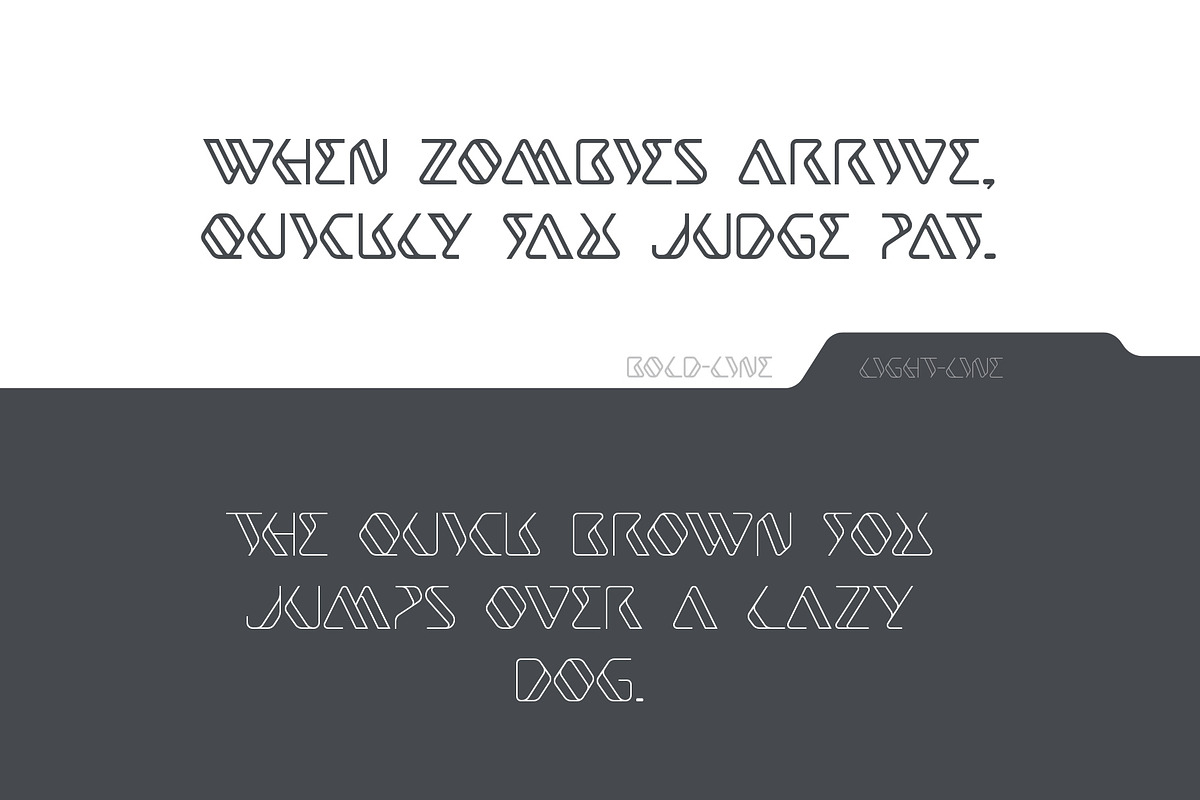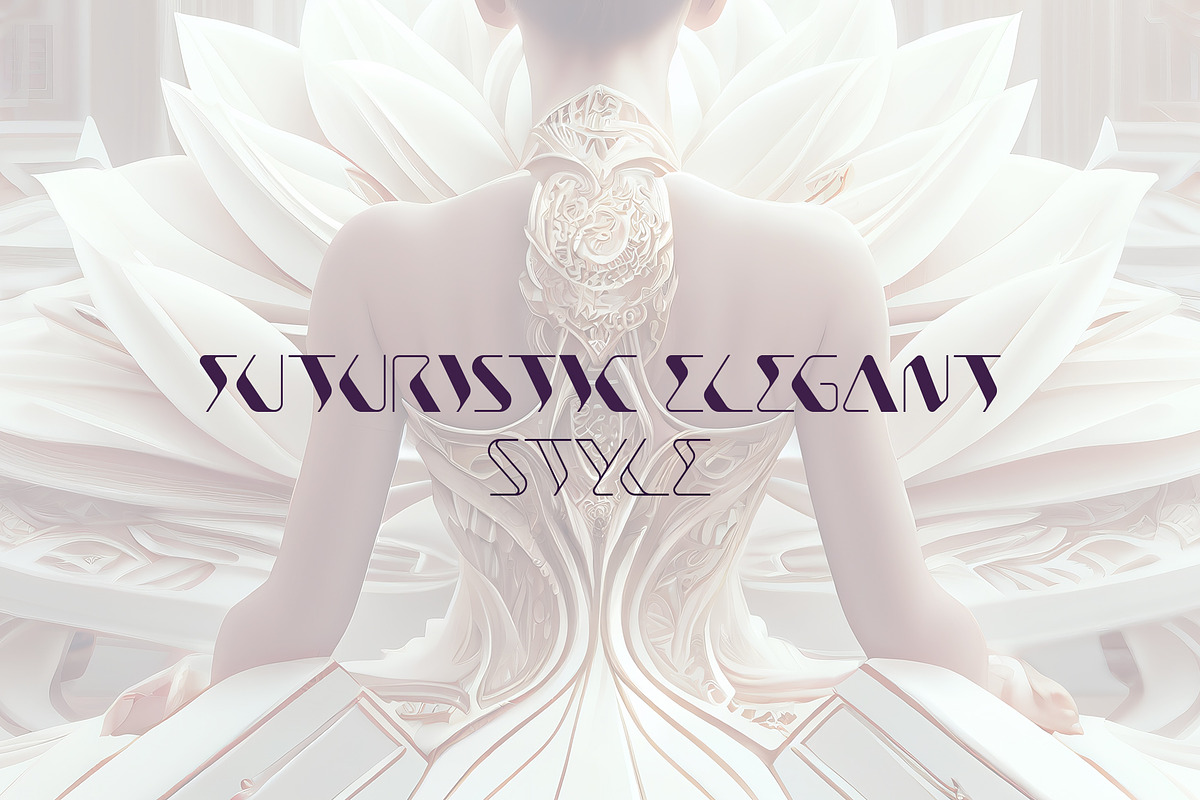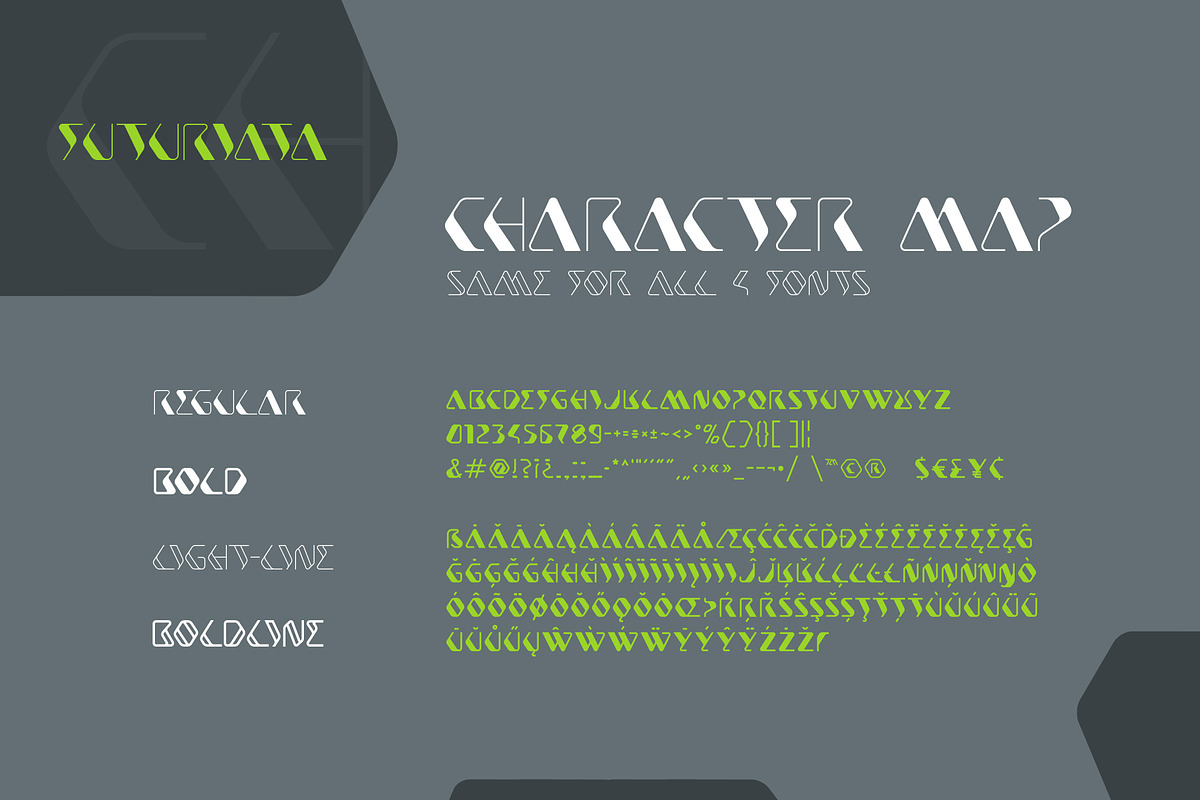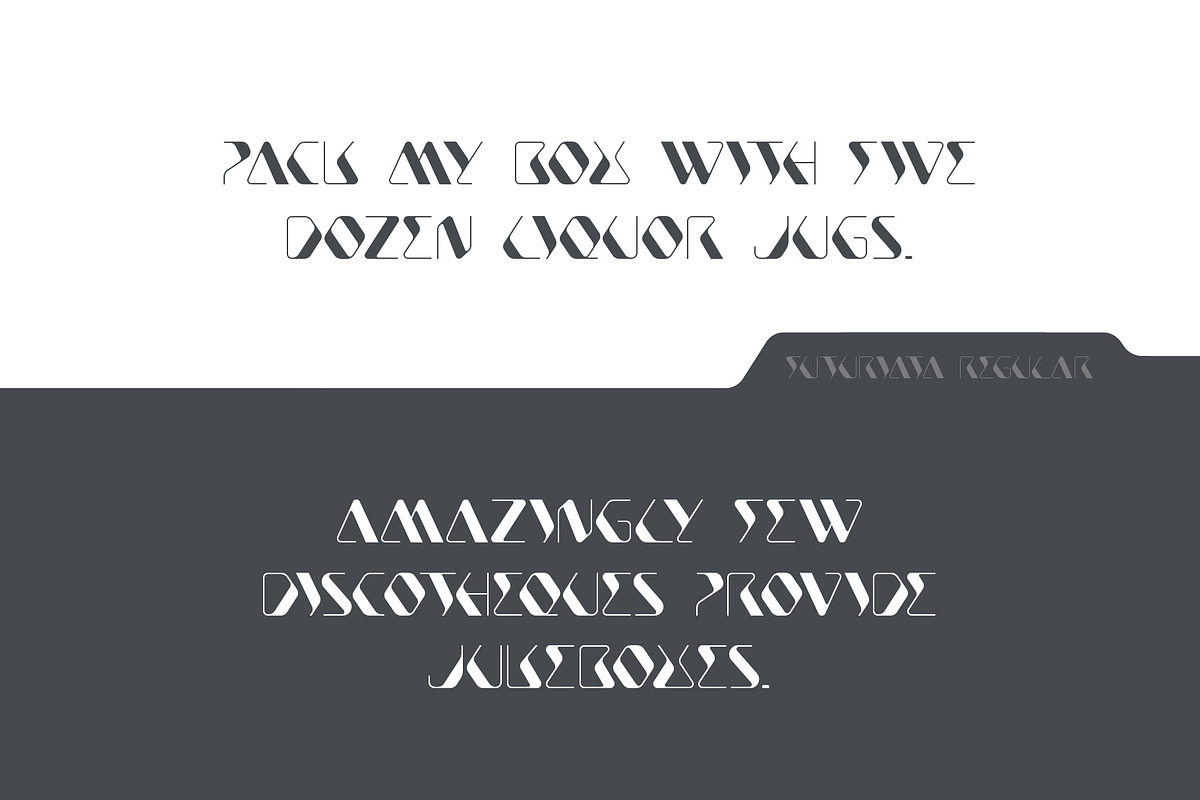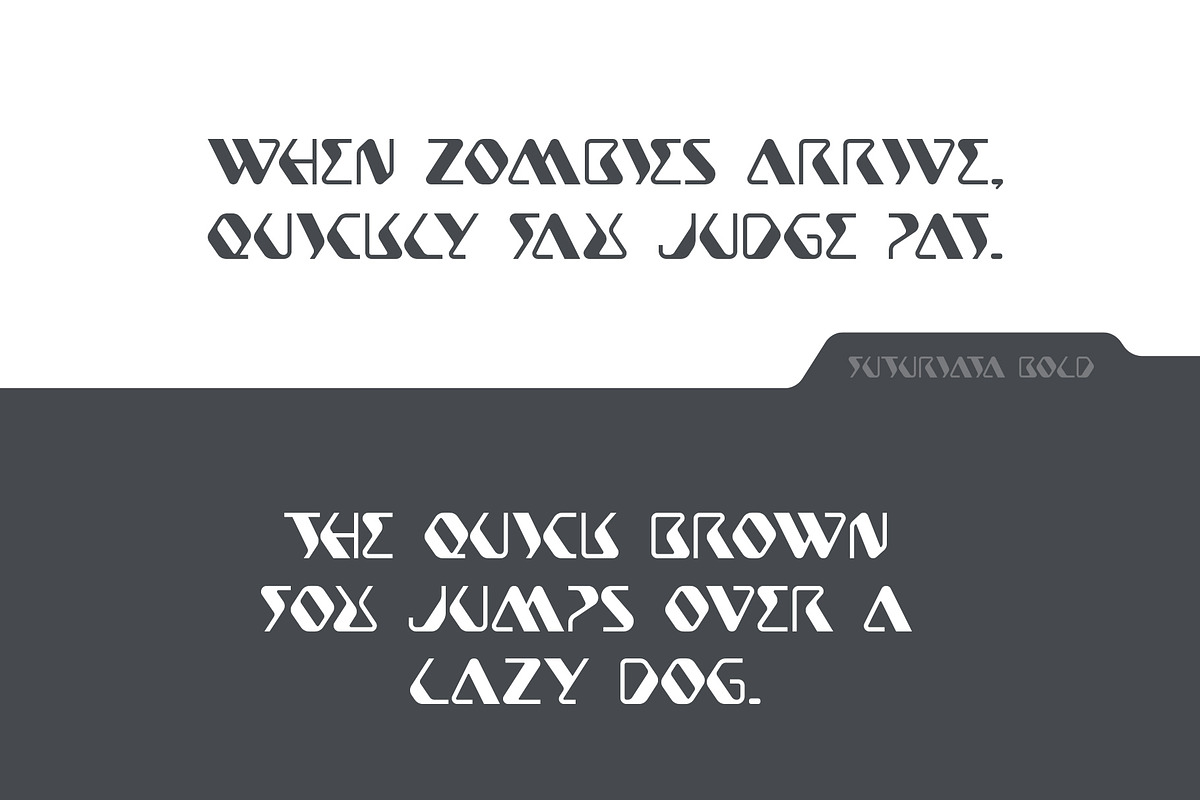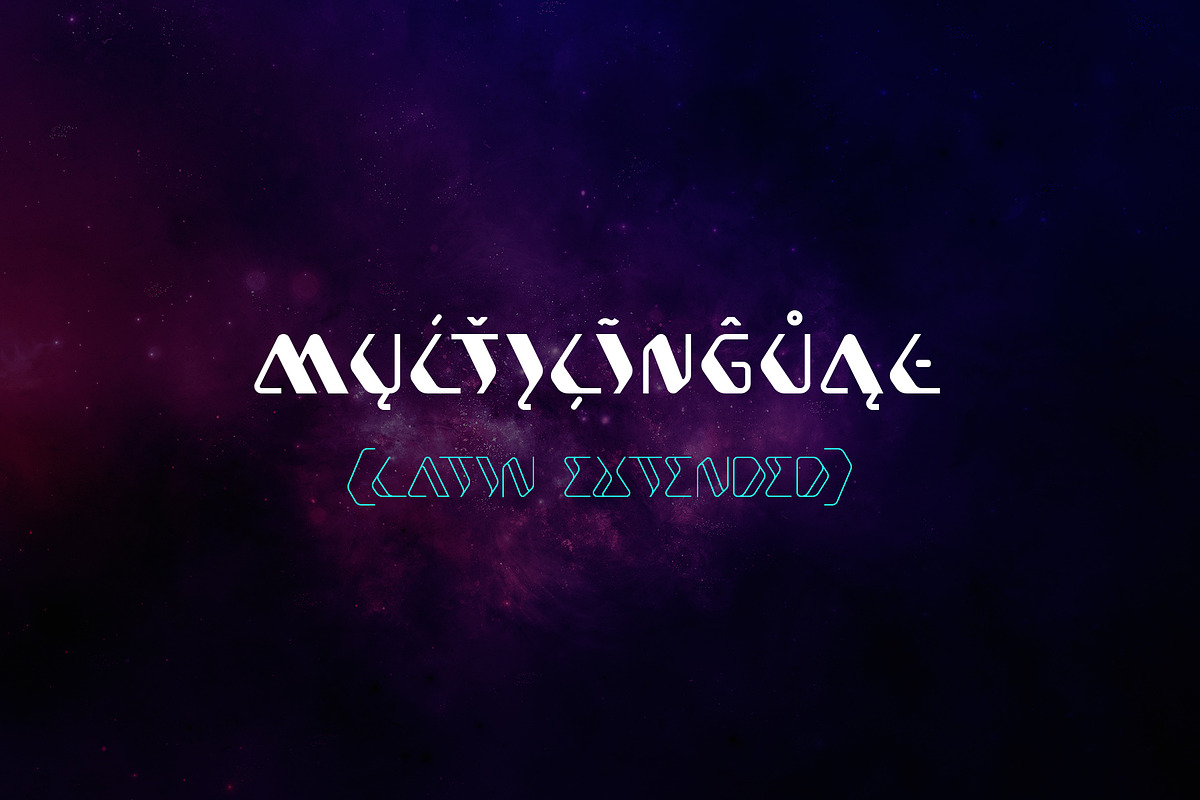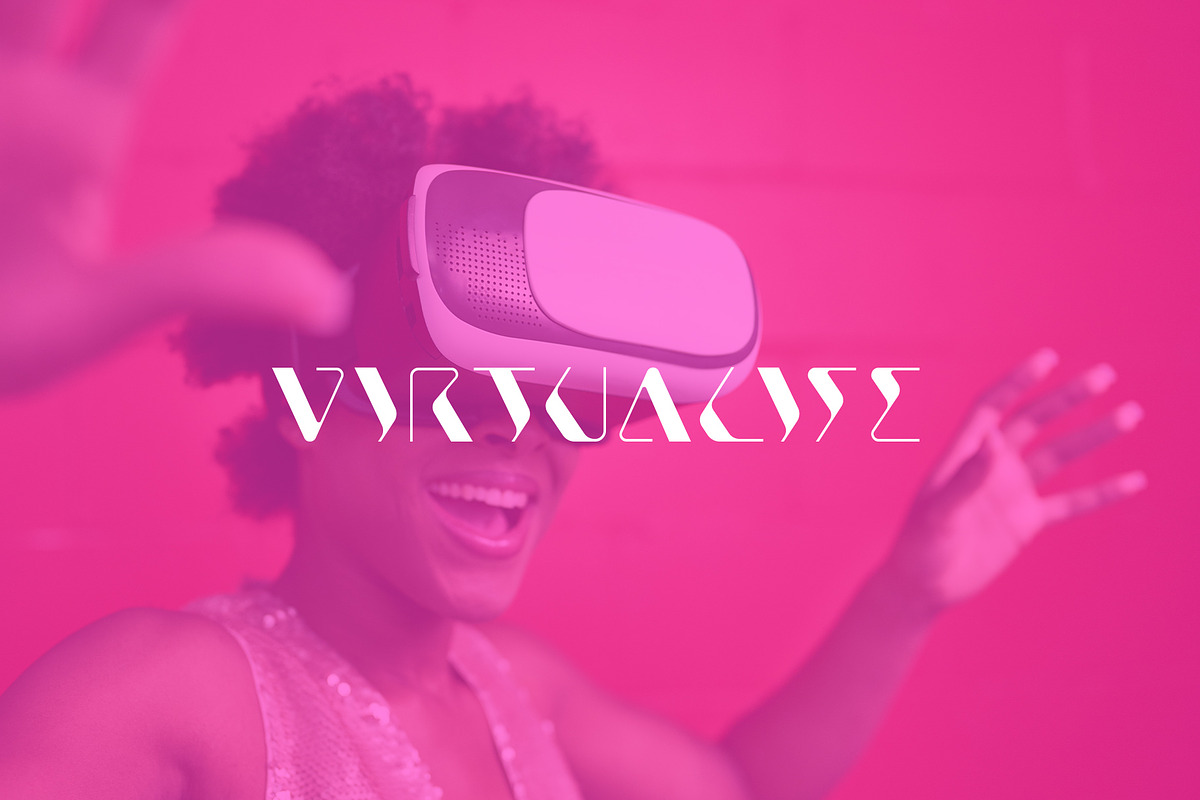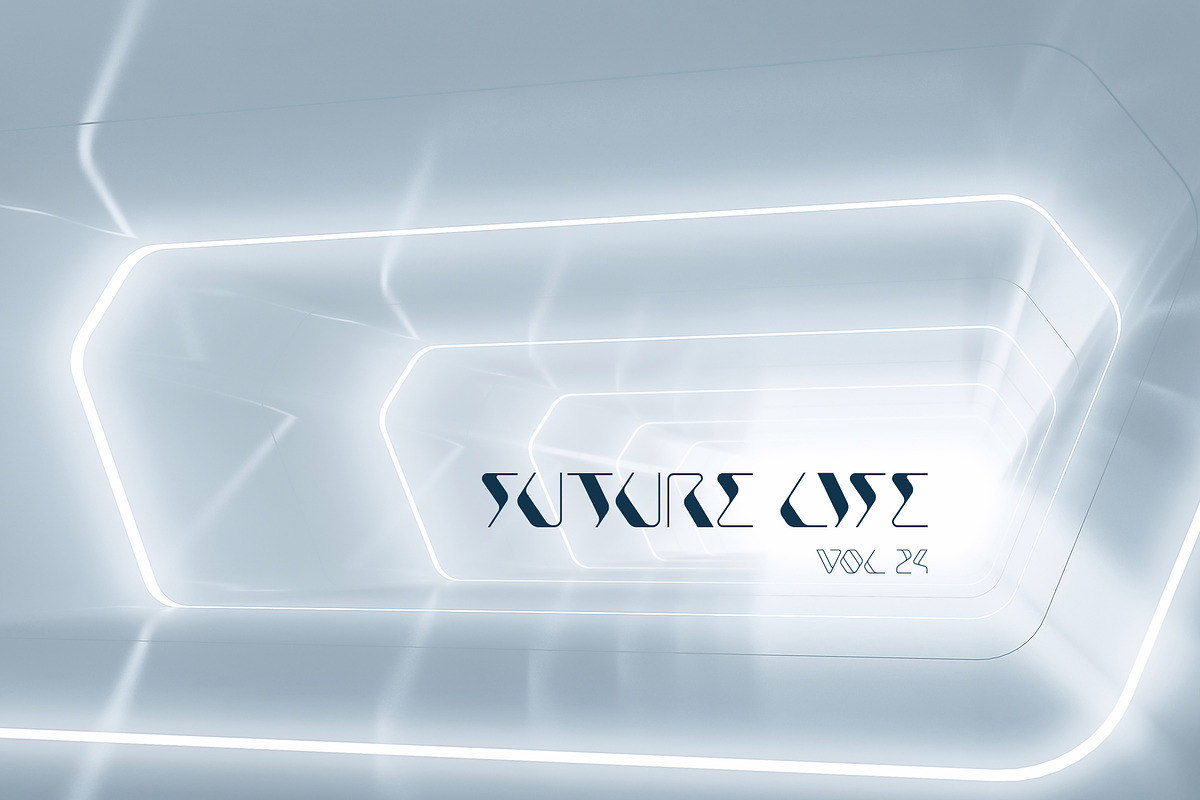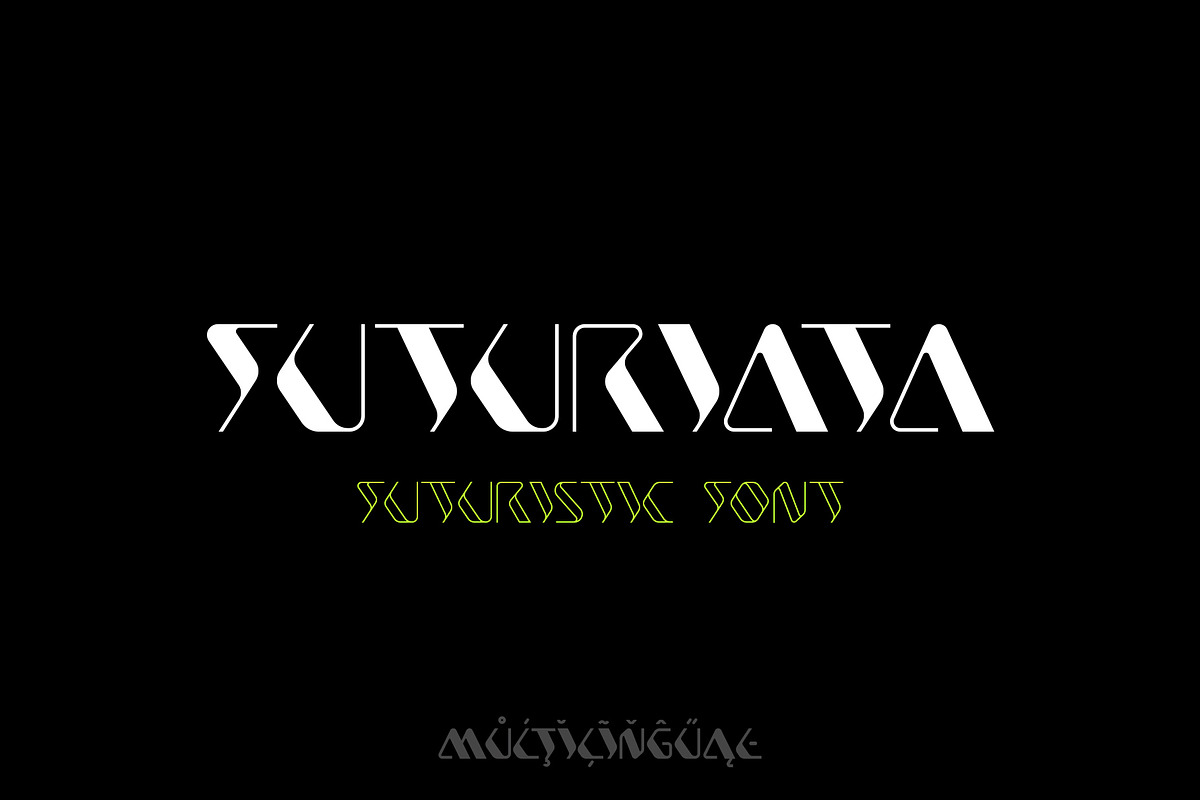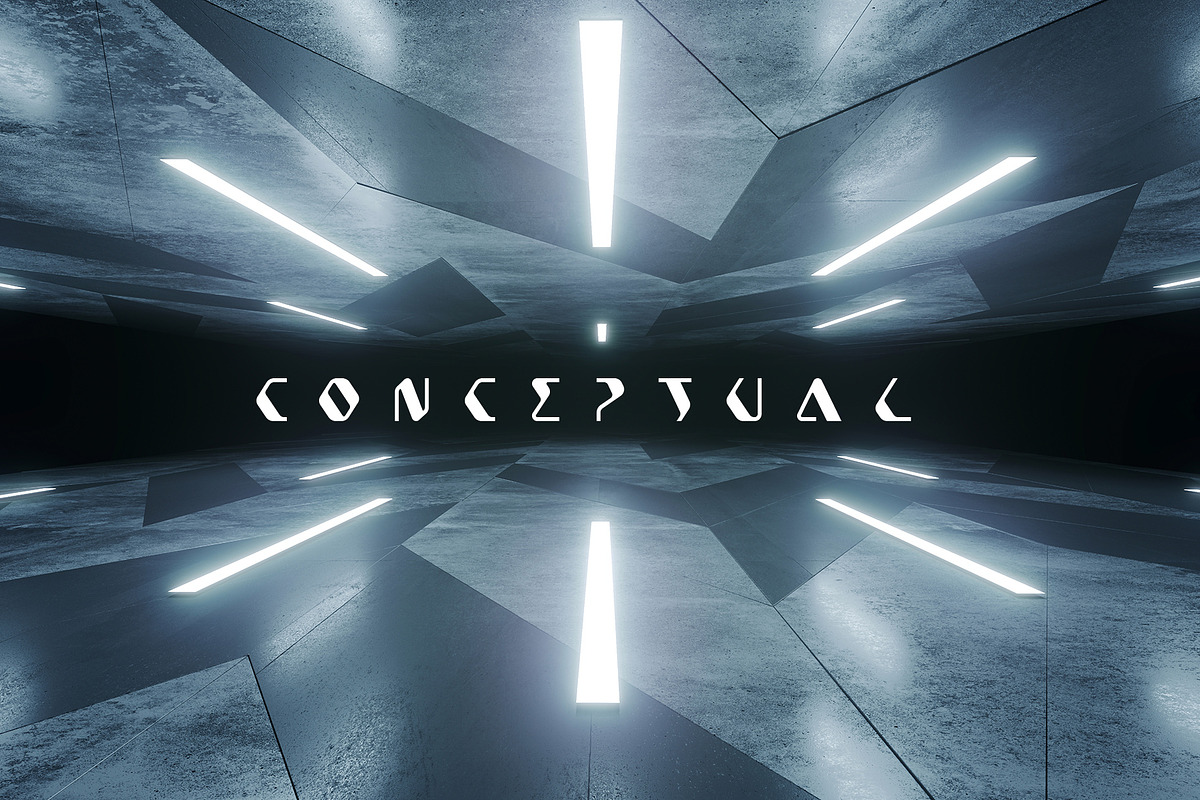
Futuriata
Futuriata is Elegant Futuristic Conceptual Font Family of four fonts. It has unusual look which will make your title phrase unique, stylish, fashionable and hitech.
Use it in your projects in such areas as robots&androids, ai, hi-tech, future, virtual reality, space, fashion and others.
Supported Languages: Bosnian, Catalan, Czech, Danish, German, English, Spanish, Estonian, Finnish, French, Irish, Croatian, Hungarian, Icelandic, Italian, Lithuanian, Latvian, Maltese, Norwegian, Polish, Portuguese, Romanian, Slovak, Slovenian, Albanian, Swedish, Turkish.